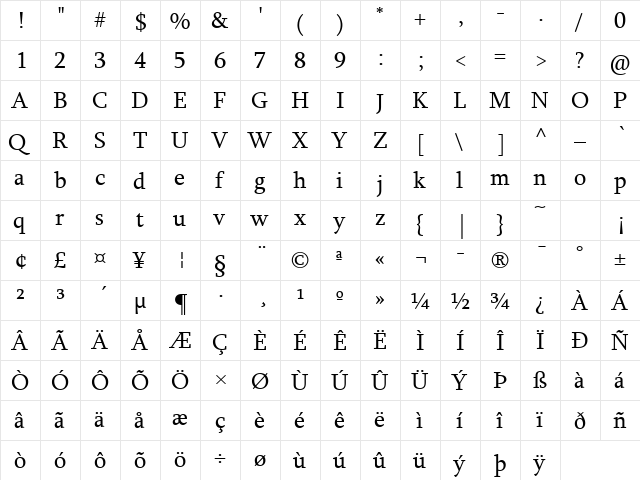
SylfaenARM Regular
| Foundry | Tiro Typeworks |
| Designer | John Hudson/Geraldine Wade |
Design Context for SylfaenARM Typeface
SylfaenARM is a composed and adaptable typeface that performs quietly and consistently across a wide range of design contexts.